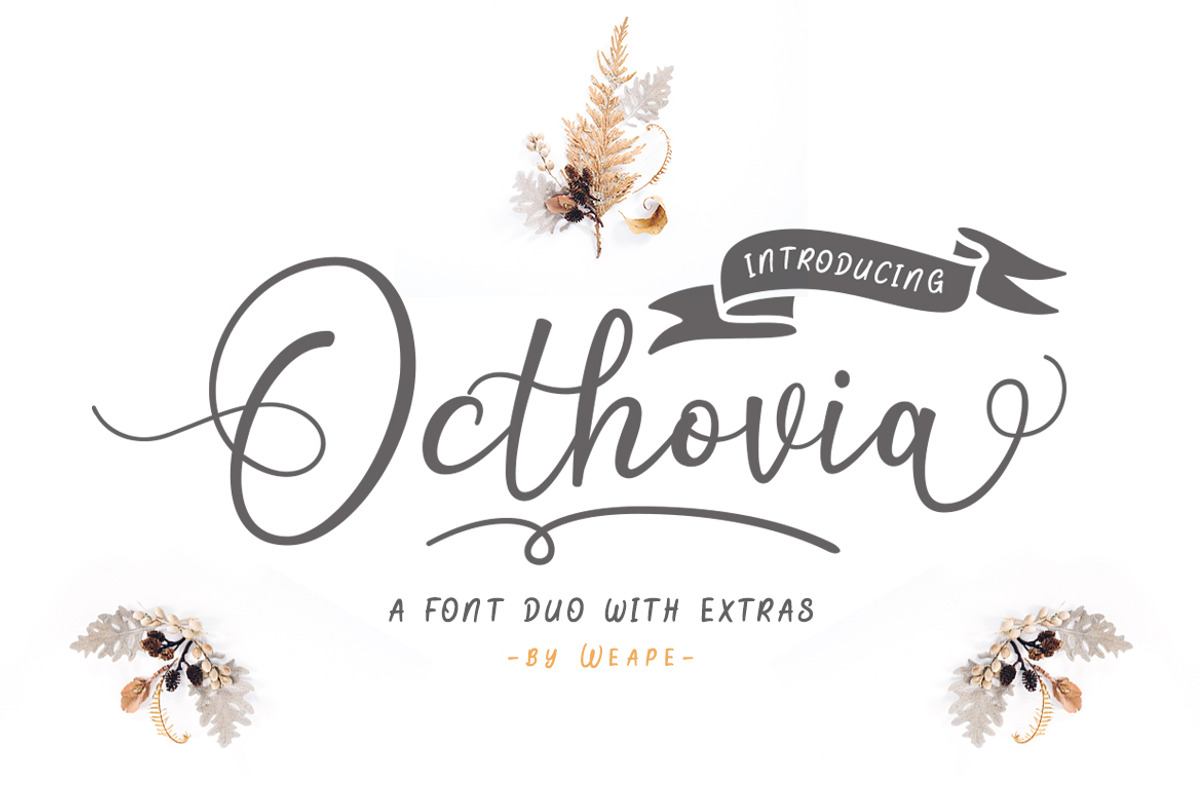
Octhovia Font Duo and Extras Free Download
The Octhovia Font Duo and Extras Free Download is a versatile and elegant combination of two unique fonts, paired with extra design elements to enhance your creative projects. Perfect for logos, branding, invitations, social media graphics, and more, this font duo adds a sophisticated and stylish touch to any design. Please note, for commercial use, a license must be purchased. You can download it for free for testing purposes.
This bundle includes both a smooth, flowing script font and a clean, modern sans-serif font, offering flexibility for various design needs. The extra elements included in this package allow you to further personalize your projects, adding flourishes and creative details.